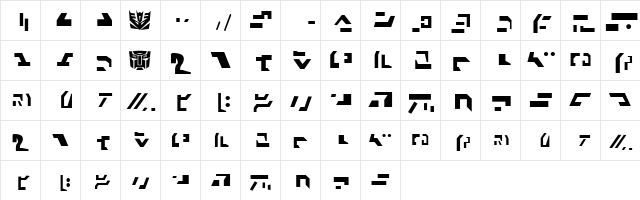
Ancient Autobot Normal
Ancient Autobot is a composed and adaptable typeface that performs quietly and consistently across a wide range of design contexts.